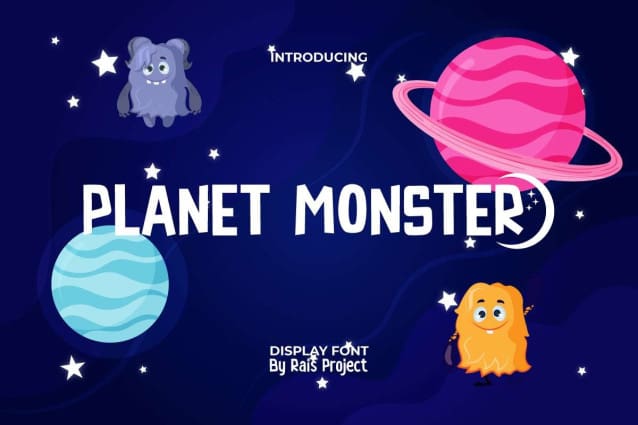
Planet Monster Font
Planet Monster Font is a playful and fun modern display font. This font has a looks that can be used on a variety of display types and make it catchy! Such as brand logo, business card, catalog, cover, custom design, invitation, label, poster, product packaging, quote, signage, website, and more!
Planet Monster Font includes a full set of Uppercase and Lowercase Letters, Numerals, and large range of punctuation. This font also contain Swoosh characters that will be suitable for various industries, such as accessories, café, cartoon, comic, event organizer, fashion, festival, interior design, kids stuff, photography, printing, publishing, etc.